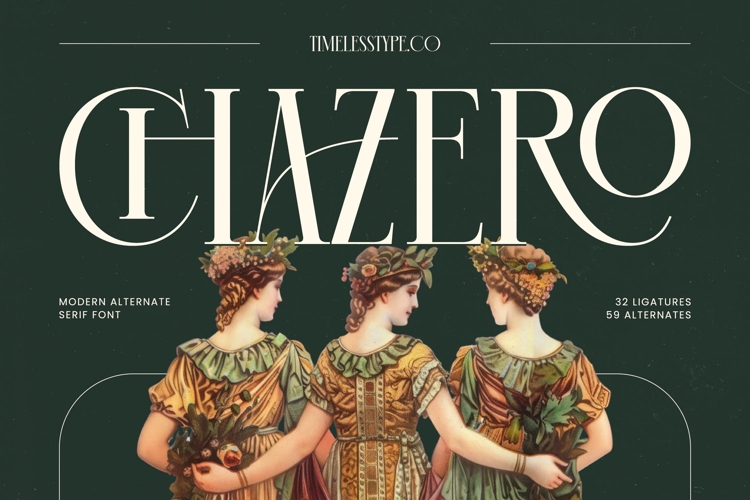
Chazero - Modern Alternate Serif Font
Chazero - Modern Alternate Serif Font is a typeface that effortlessly marries classic elegance with contemporary flair. This exceptional font features a striking high-contrast design, exuding a refined sophistication perfect for capturing attention. Its delicate serifs and balanced letterforms create an enduring visual appeal, ensuring your message is delivered with undeniable class and style, making it a standout choice for discerning designers.
Unleash unparalleled creative flexibility with the rich stylistic capabilities of Chazero - Modern Alternate Serif Font. Boasting an impressive collection of 32 ligatures and 59 alternates, this font empowers designers to craft truly unique and expressive typography. These extensive options allow for dynamic customization, enabling you to infuse every headline, logo, and textual block with a distinctive personality and artistic flourish.
Expand your design horizons globally with the exceptional adaptability of Chazero - Modern Alternate Serif Font. With its extensive multilingual support, Chazero - Modern Alternate Serif Font adapts seamlessly across global markets, making it incredibly versatile for international projects. This comprehensive language coverage ensures your brand communication remains consistent and professional worldwide, reaching a broader audience without compromise.